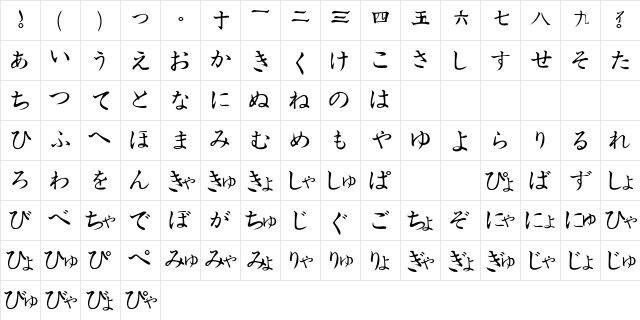
Complete Seppuku Medium glyph index. Displaying only characters natively supported by Seppuku Medium font.
Seppuku is a composed and adaptable typeface that performs quietly and consistently across a wide range of design contexts.